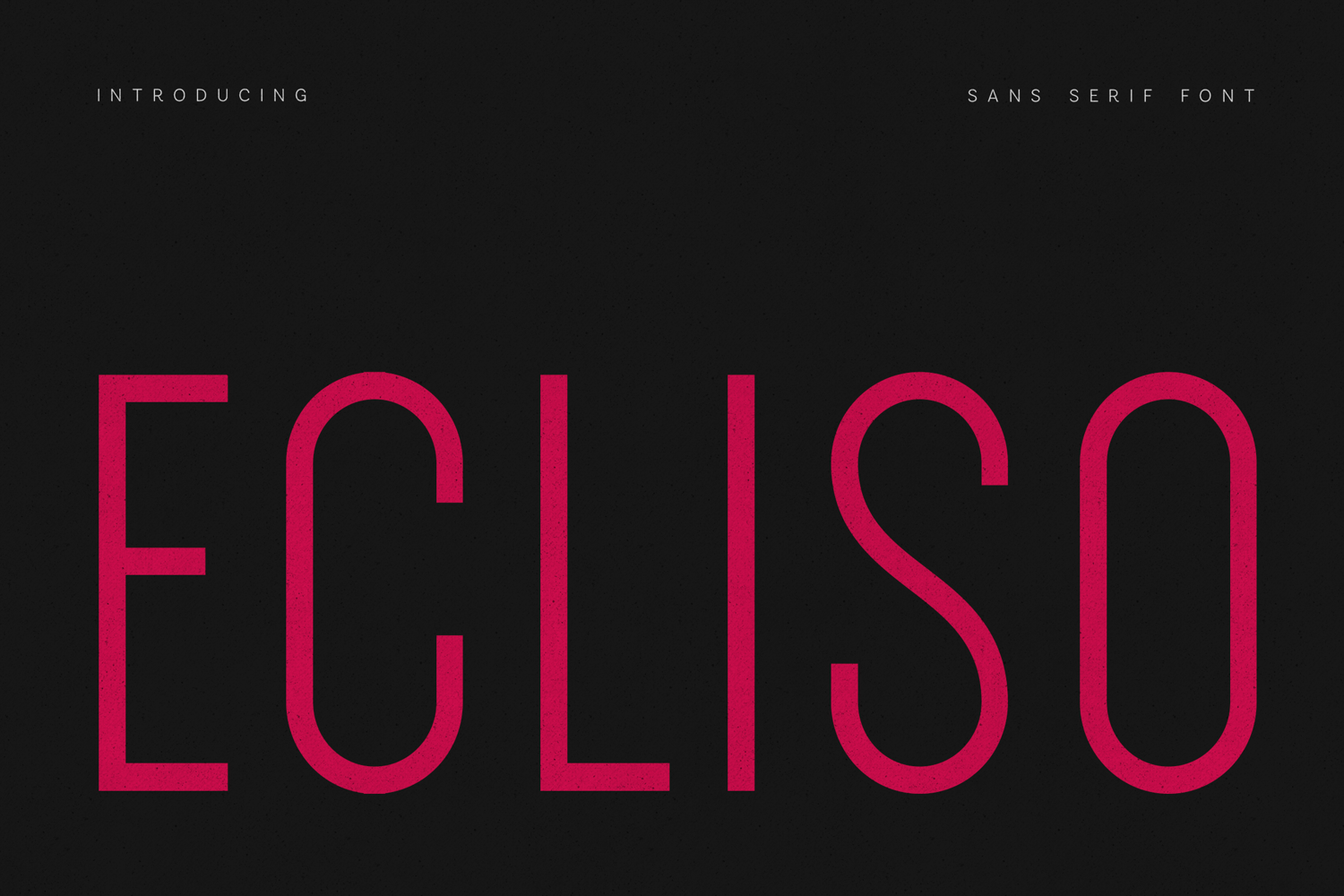
Ecliso Sans Serif Font Minimal Luxury Typeface
Ecliso is a refined geometric sans serif designed for contemporary branding and editorial systems.
With tall proportions, balanced curves, and a confident modern structure, Ecliso delivers clarity without losing character. Its clean construction and generous spacing make it ideal for luxury branding, fashion design, architecture studios, and minimalist visual identities.
Ecliso combines elegance and precision — strong enough for headlines, sophisticated enough for full identity systems.
• Luxury branding
• Fashion editorials
• Logo design
• Architecture & interior studios
• Packaging design
• Modern websites
• Social campaigns
• Corporate identity